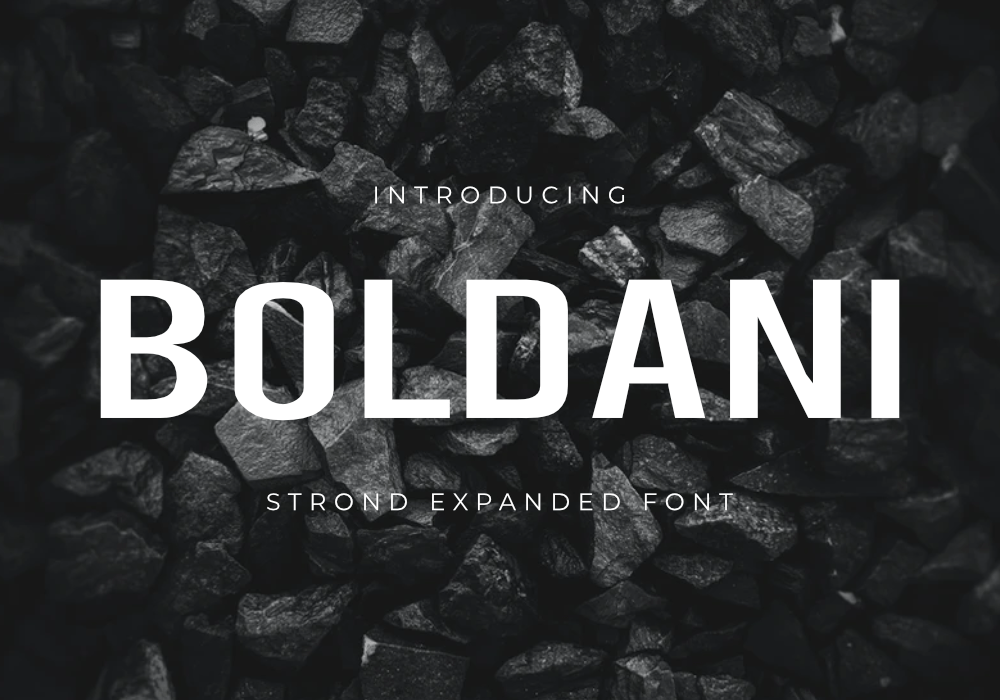
Boldani Font by GraphicsFamily Boldani is a bold and futuristic sans serif font designed by GraphicsFamily. Masterfully designed to become a true favorite, this font has the potential to bring each of your creative ideas to the highest level! Enjoy! !IMPORTANT You may use this font for both personal and commercial purposes. License – Free